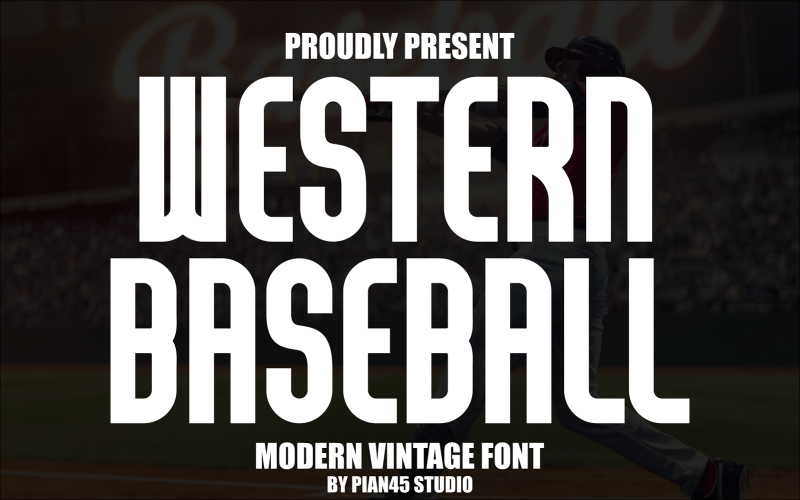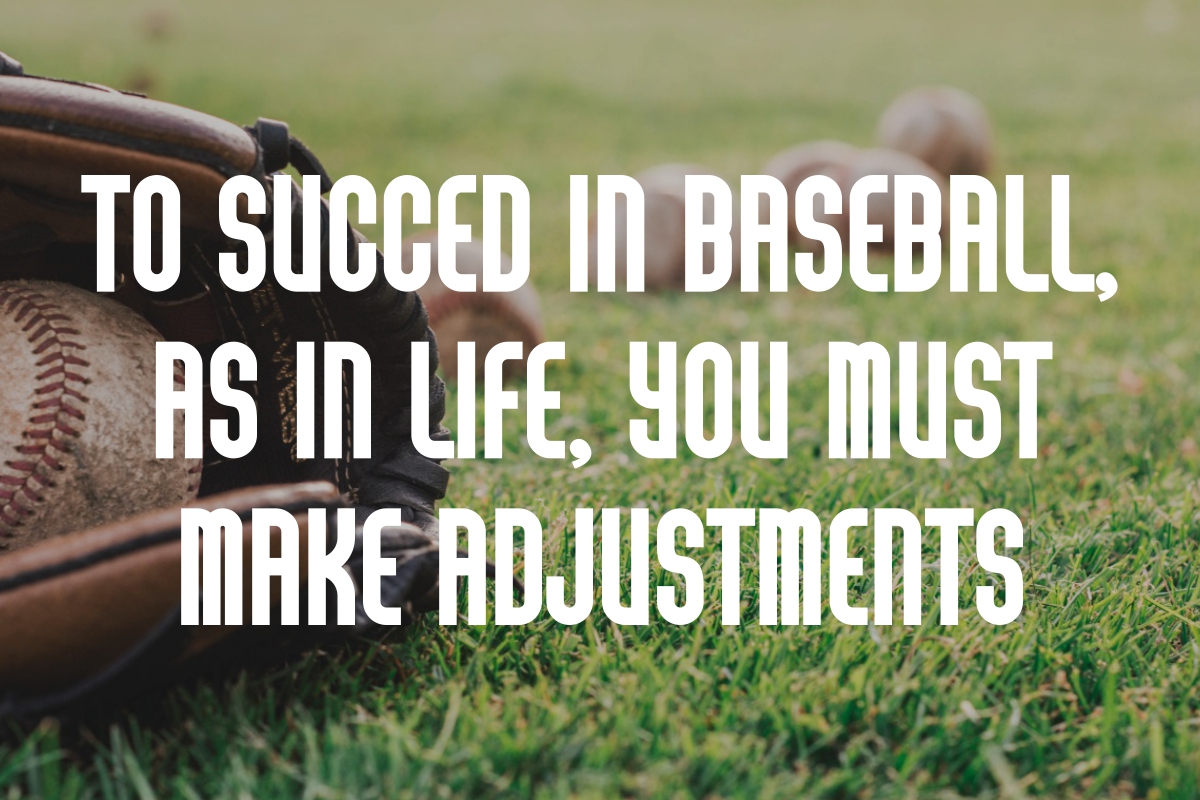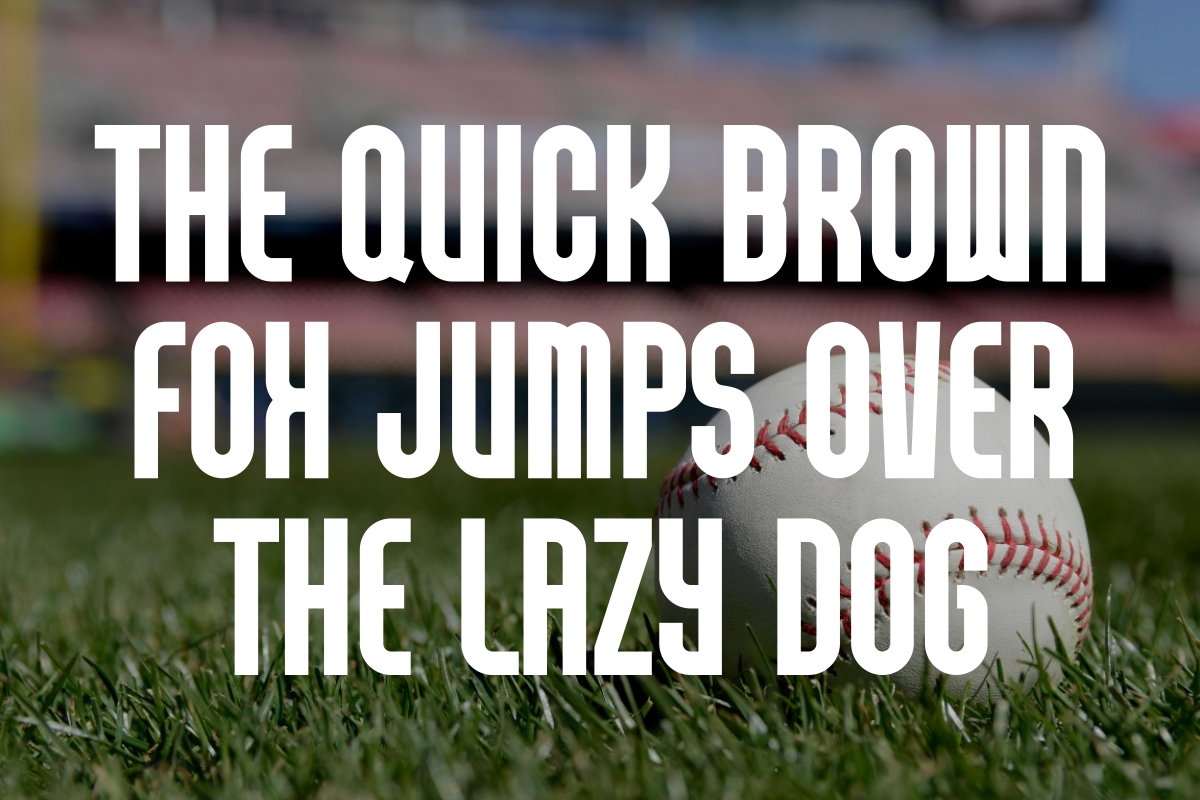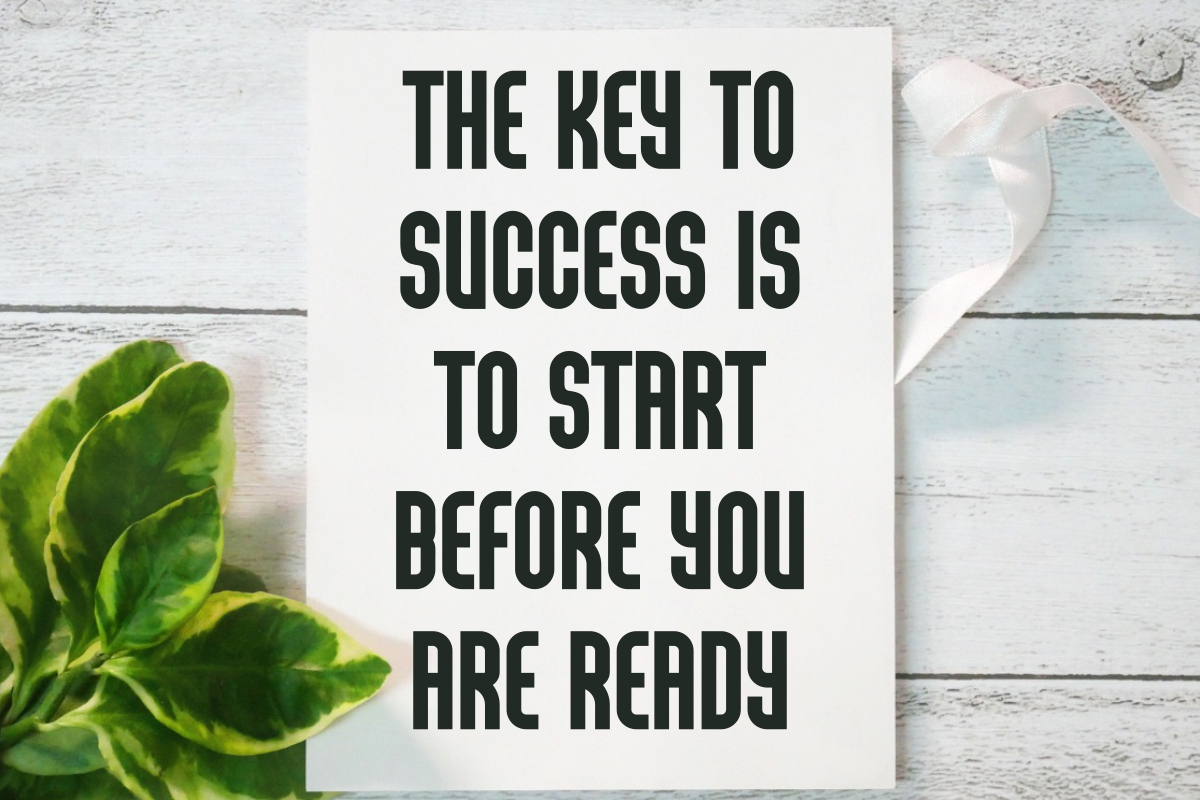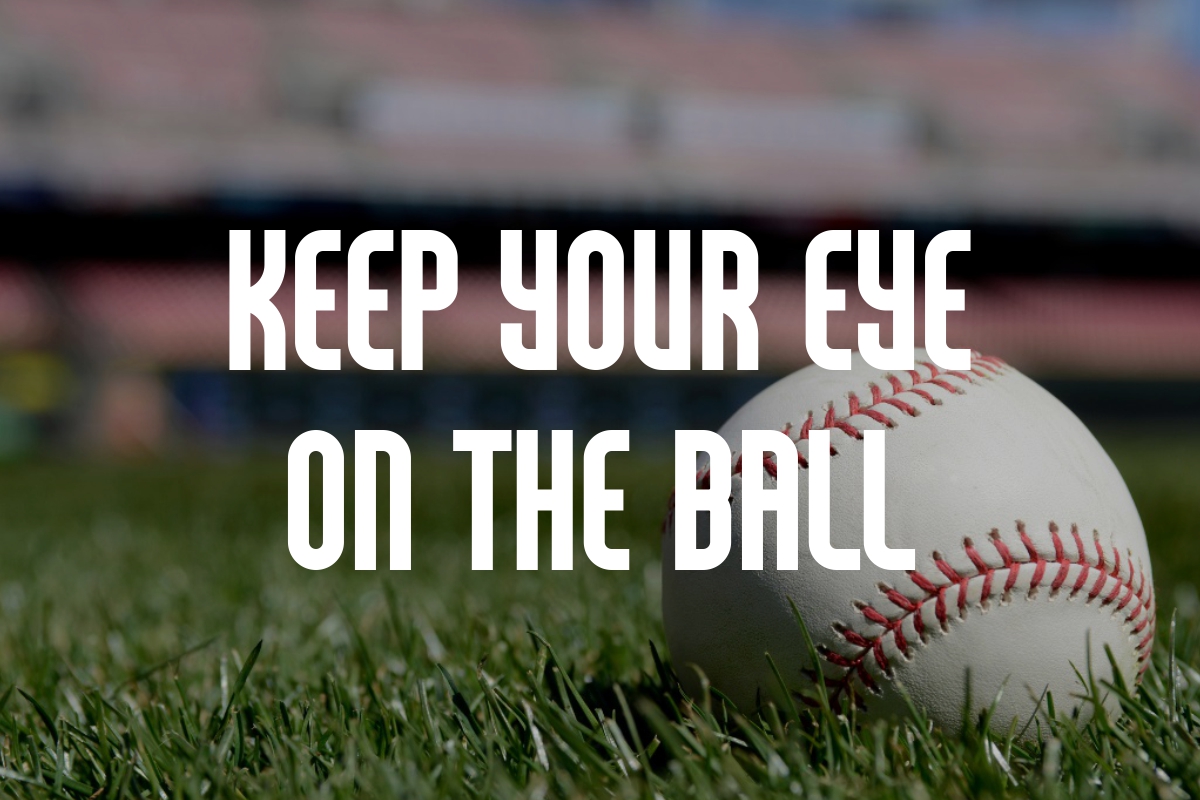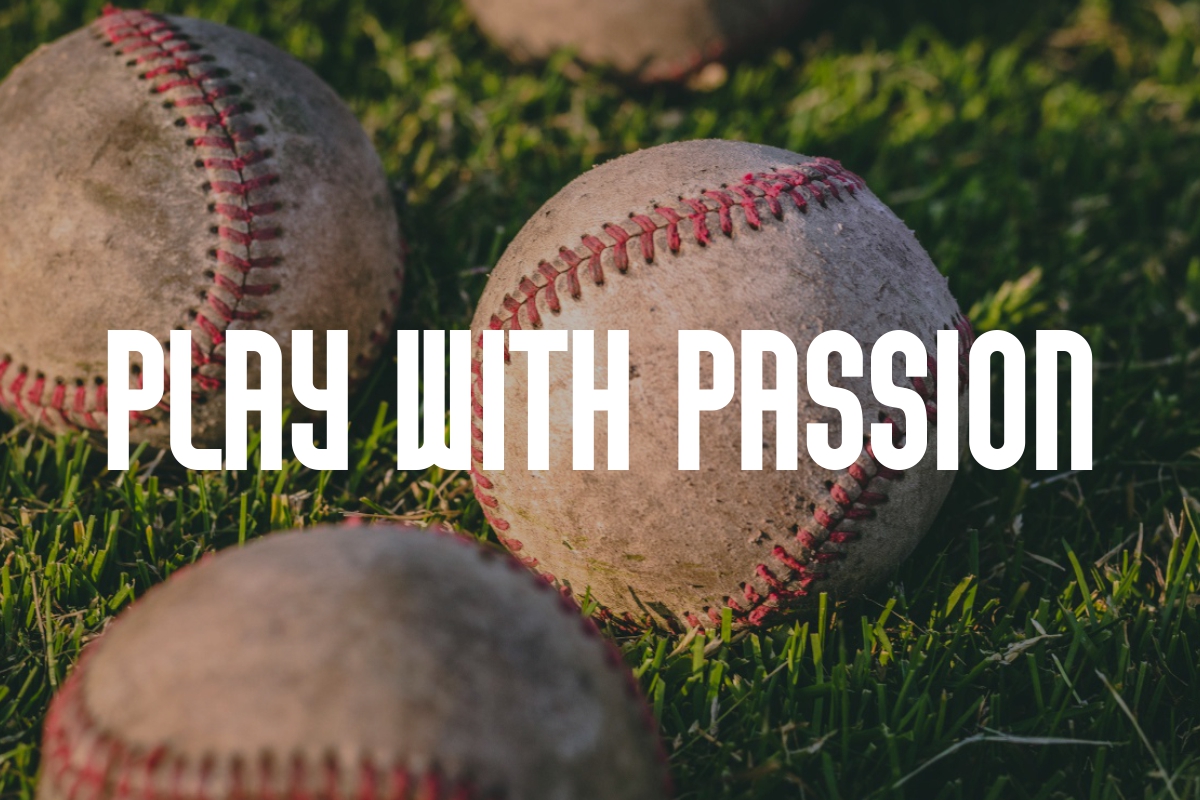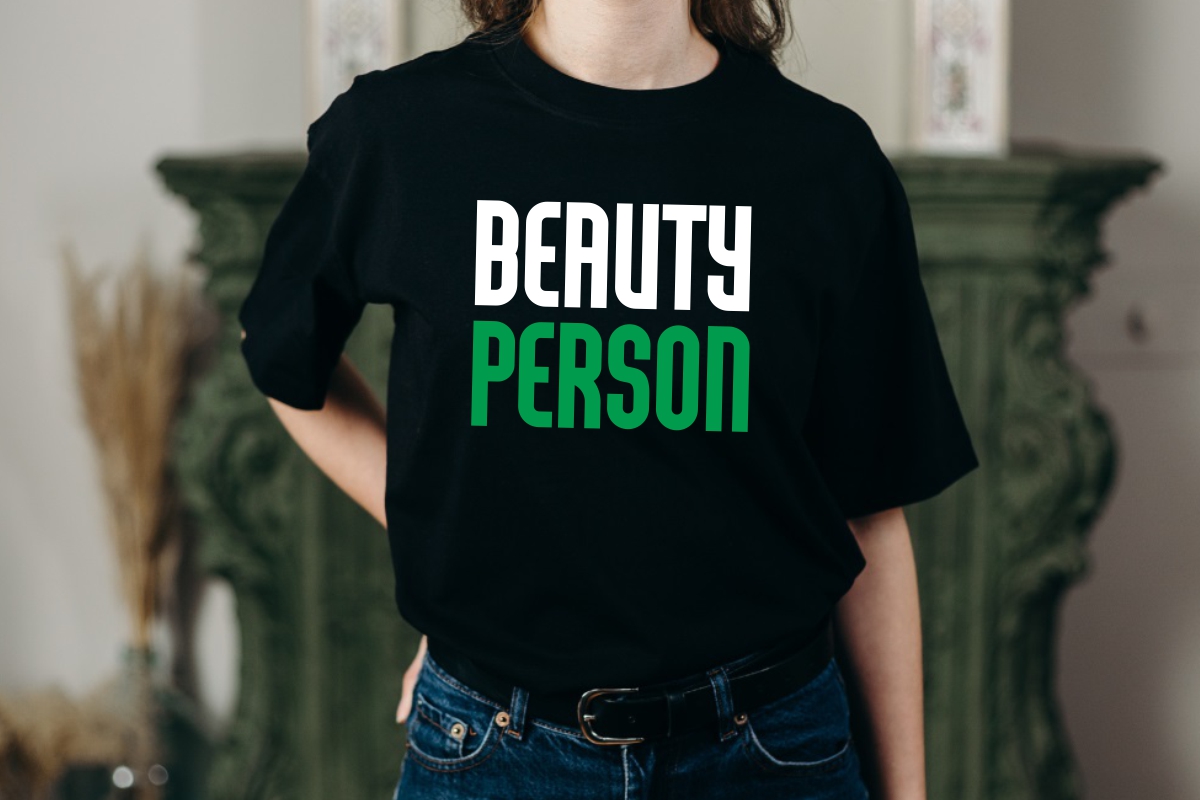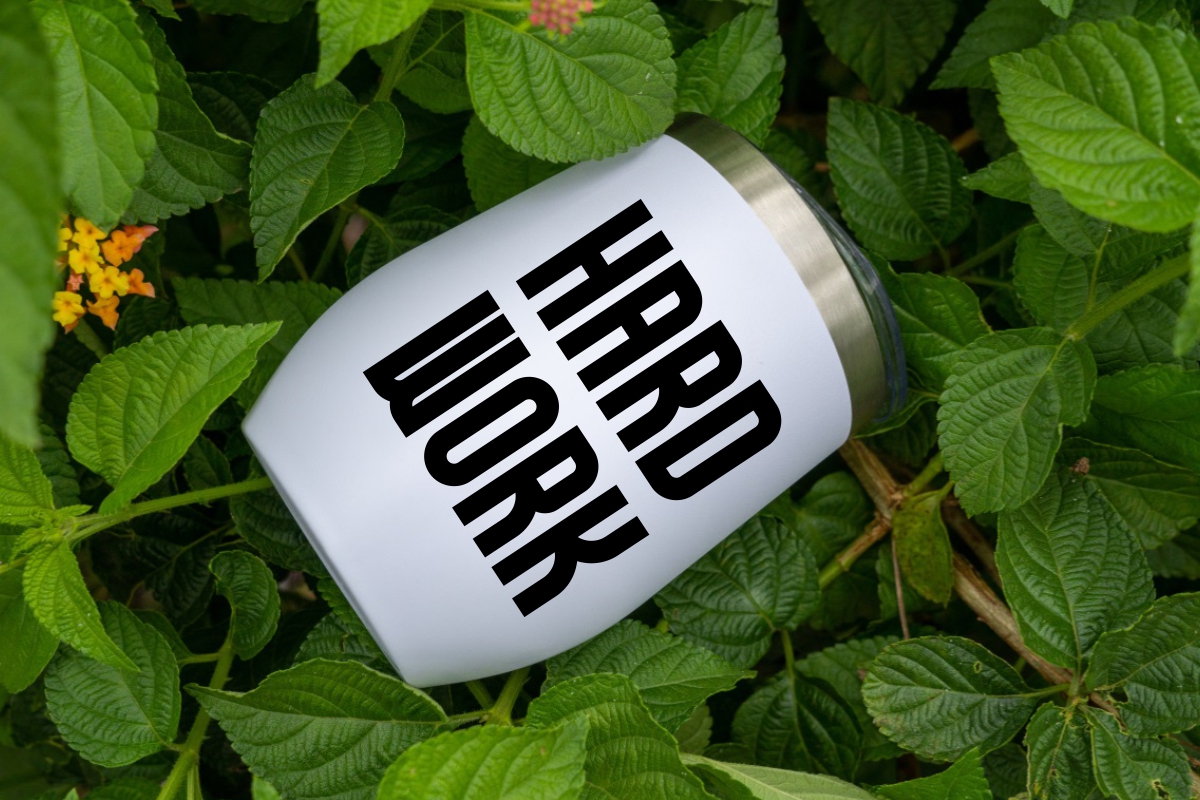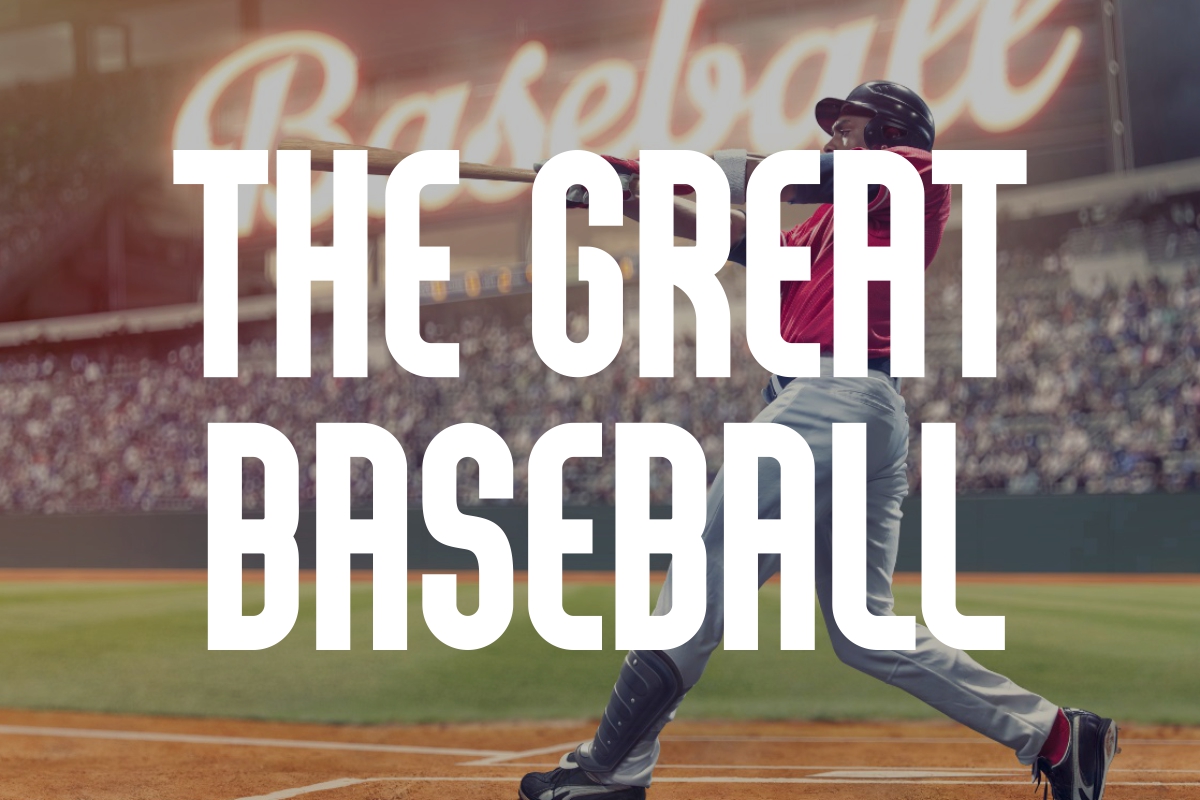
Western Baseball - Vintage Sans Serif Font
Western Baseball is a powerful and impactful modern vintage display font that masterfully blends the classic, athletic aesthetic of vintage sports typography with a clean, contemporary feel. Its bold, condensed, all-caps letterforms feature distinct, slightly rounded terminals, giving it a strong, commanding presence perfect for headlines, logos, and branding that requires a nostalgic yet dynamic punch. Ideal for sports apparel, event posters, craft packaging, and anything needing a tough, retro-modern look.